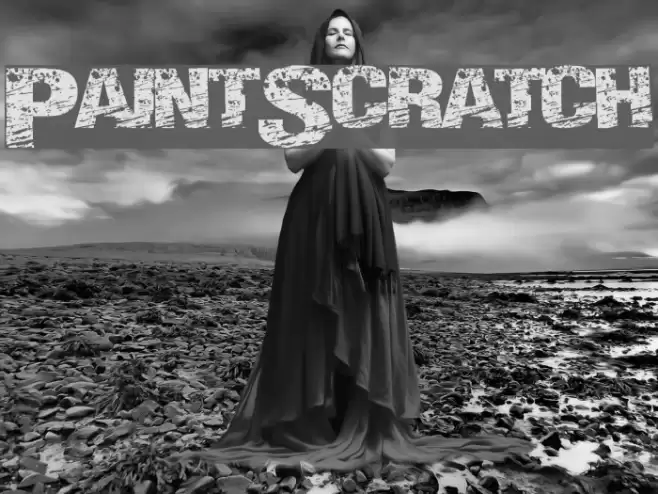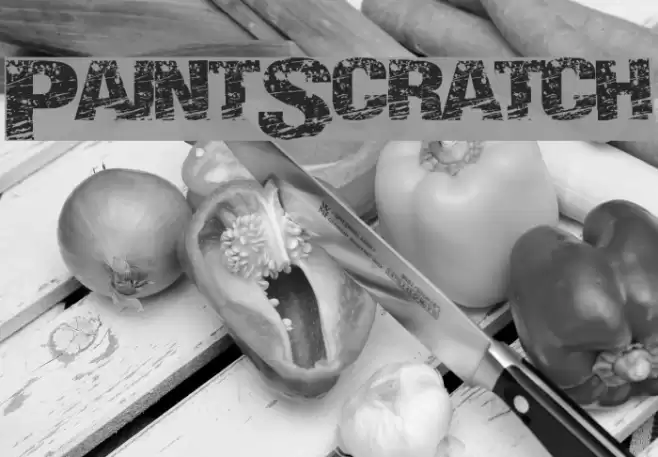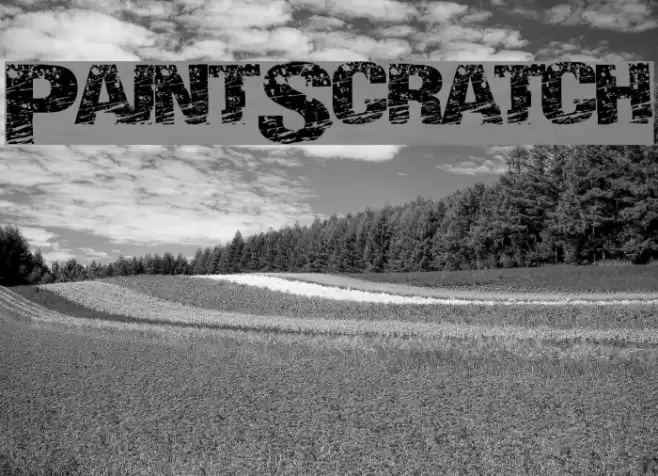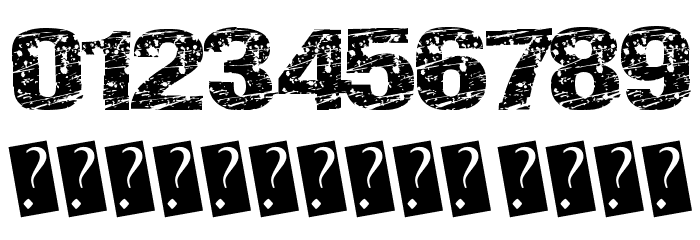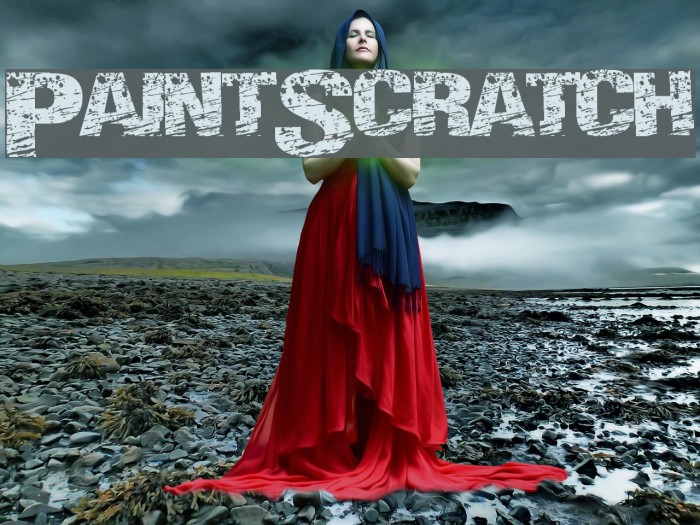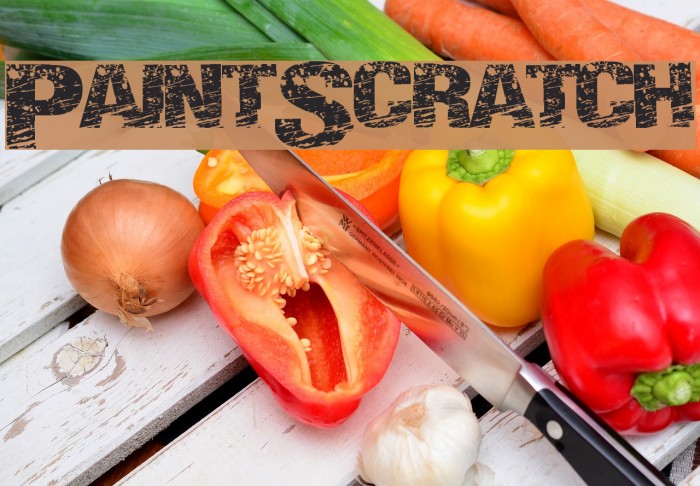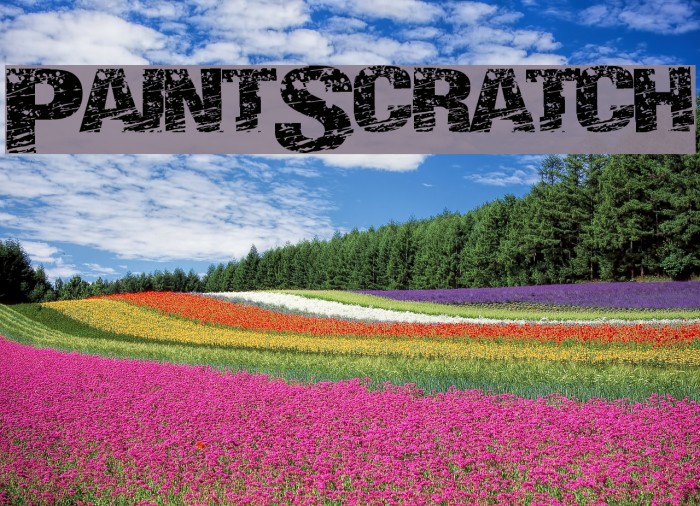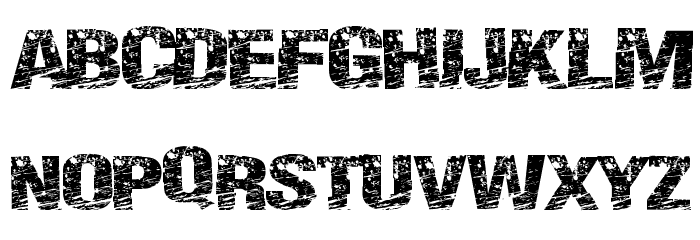
PaintScratch Font
PaintScratch Description
This font features a rugged, distressed appearance, reminiscent of paint that has been scratched or worn away. The characters are bold and impactful, with a textured surface that gives them a gritty, urban feel. The uppercase letters are uniform in height, while the numbers and special characters maintain the same distressed style, ensuring consistency across all elements. The font's unique texture makes it stand out, adding a sense of edginess and rawness to any design. Its boldness and texture make it ideal for projects that require a strong visual impact.
A bold, distressed font with a rugged, textured appearance from Fancy fonts.
- Proposed Projects: Ideal for posters, album covers, streetwear branding, and any design needing a gritty, urban aesthetic.
- Overall Style: Urban, Edgy, Rugged